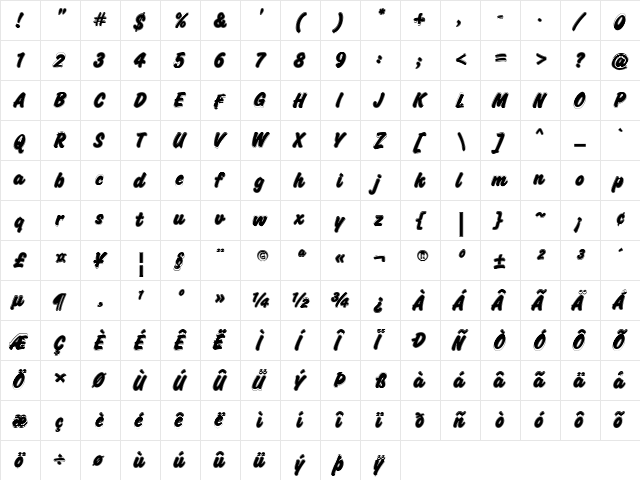
Challenge Contour Regular
Design Context for Challenge Contour Typeface
Challenge Contour is a composed and adaptable typeface that performs quietly and consistently across a wide range of design contexts.